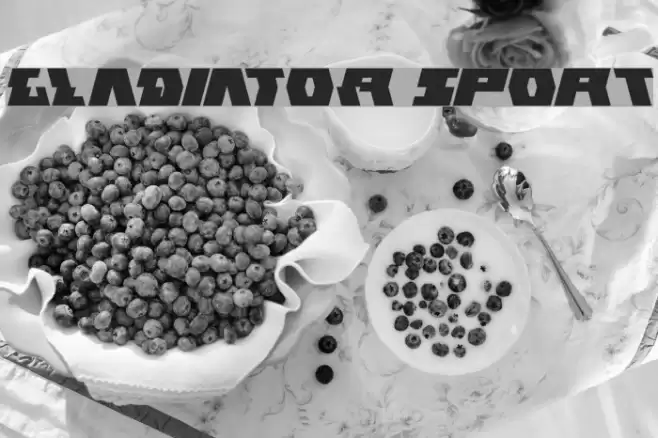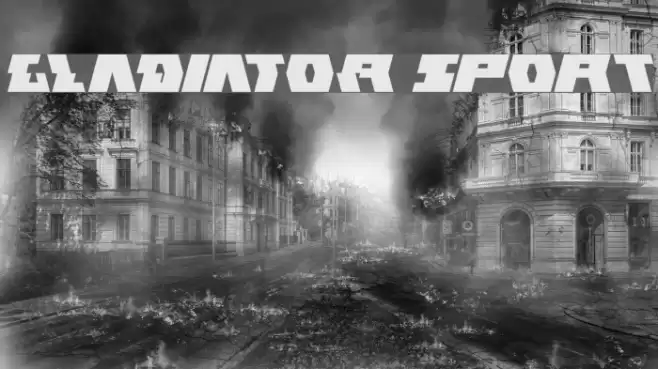
GLADIATOR sport Font
GLADIATOR sport Description
This font features a bold, angular design with a strong geometric influence. The characters are constructed with sharp, pointed edges and a blocky appearance, giving it a futuristic and dynamic feel. The uppercase letters are particularly striking, with a consistent height and width that create a uniform look. The font's aggressive style is reminiscent of sports branding or action-themed designs, making it ideal for projects that require a bold statement. The absence of curves and the emphasis on straight lines contribute to its modern and edgy aesthetic.
A bold, angular font with a futuristic and dynamic design from Uncategorized fonts.
- Proposed Projects: Ideal for sports branding, action-themed posters, video game titles, and dynamic logos.